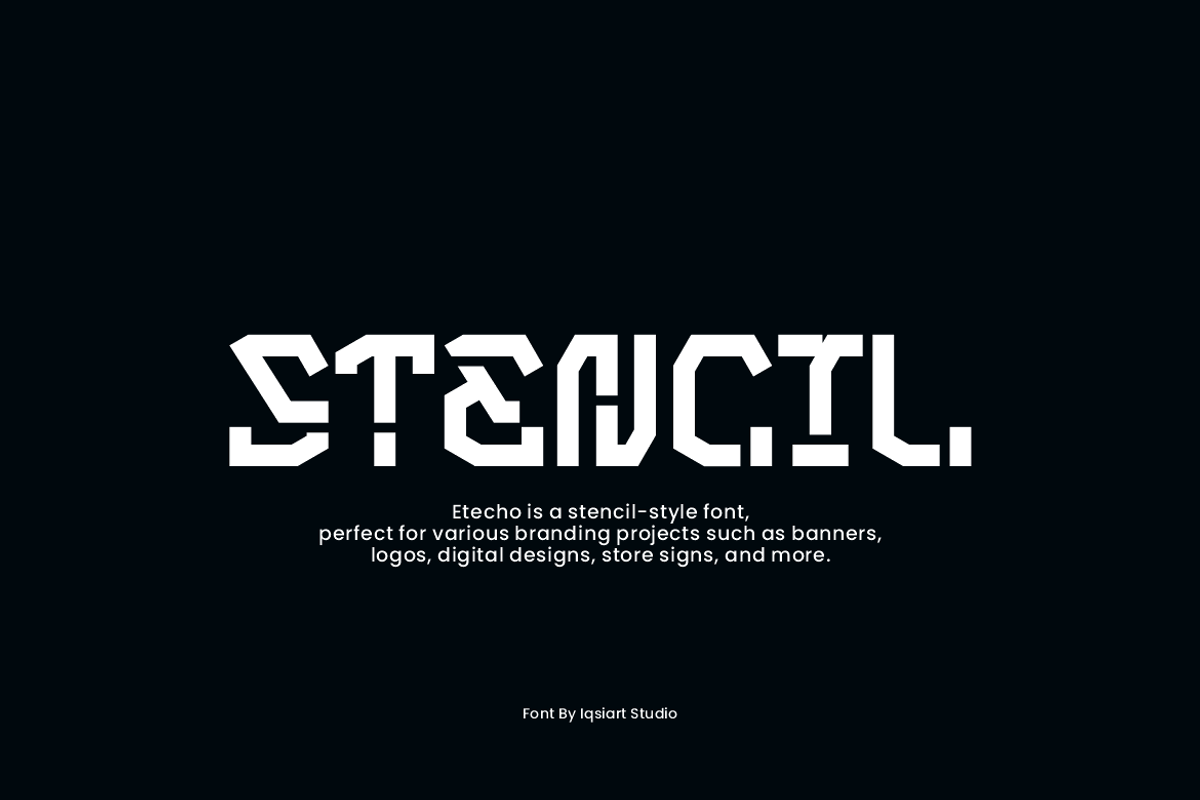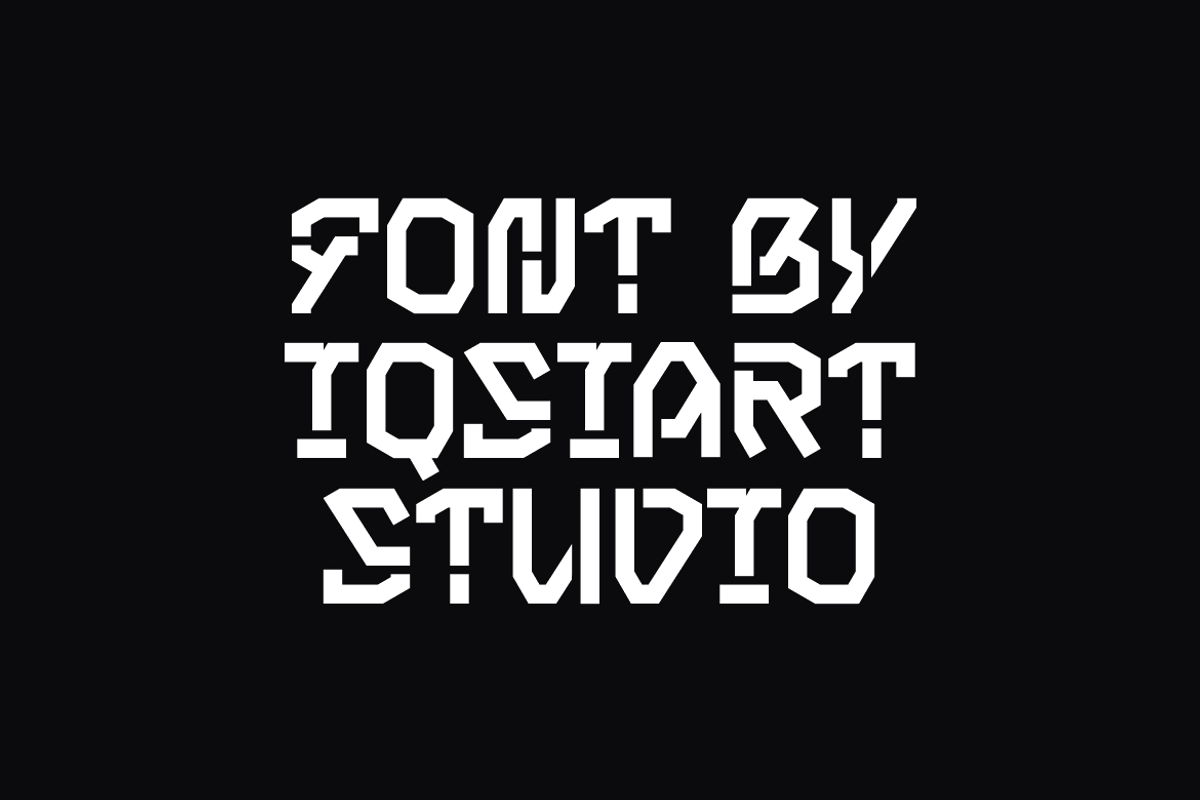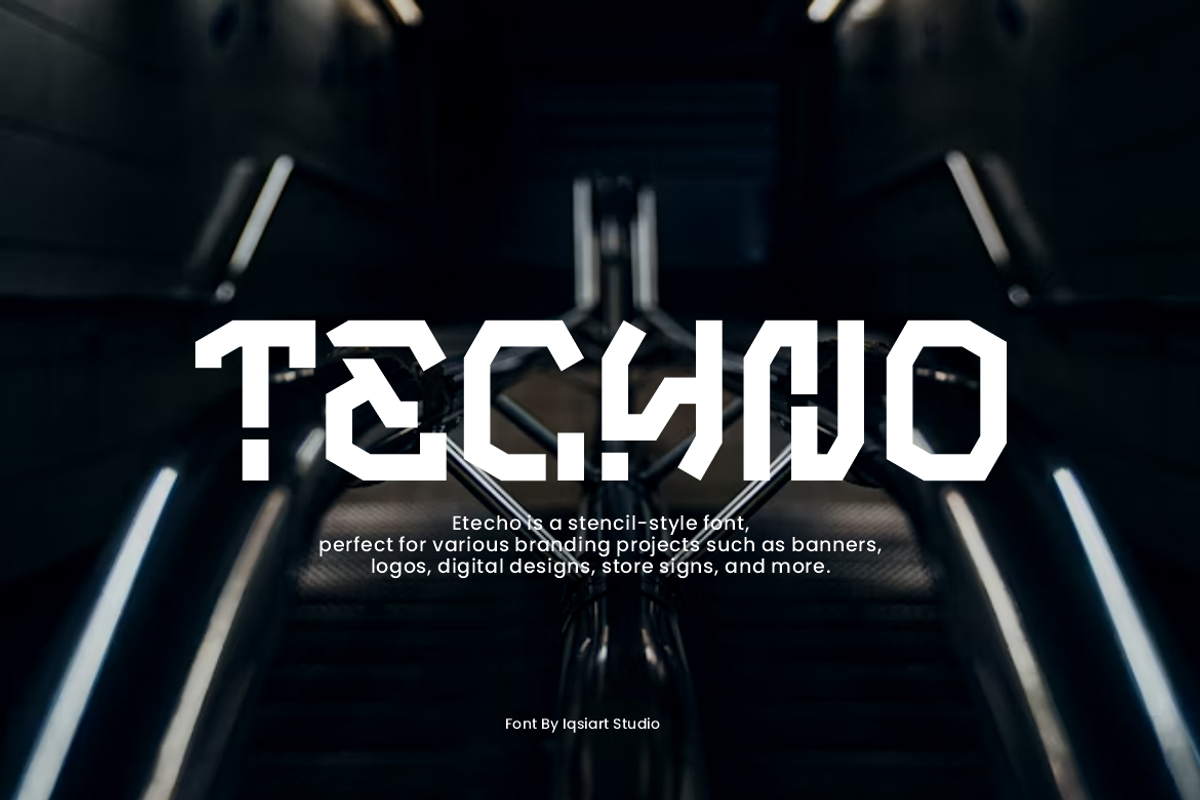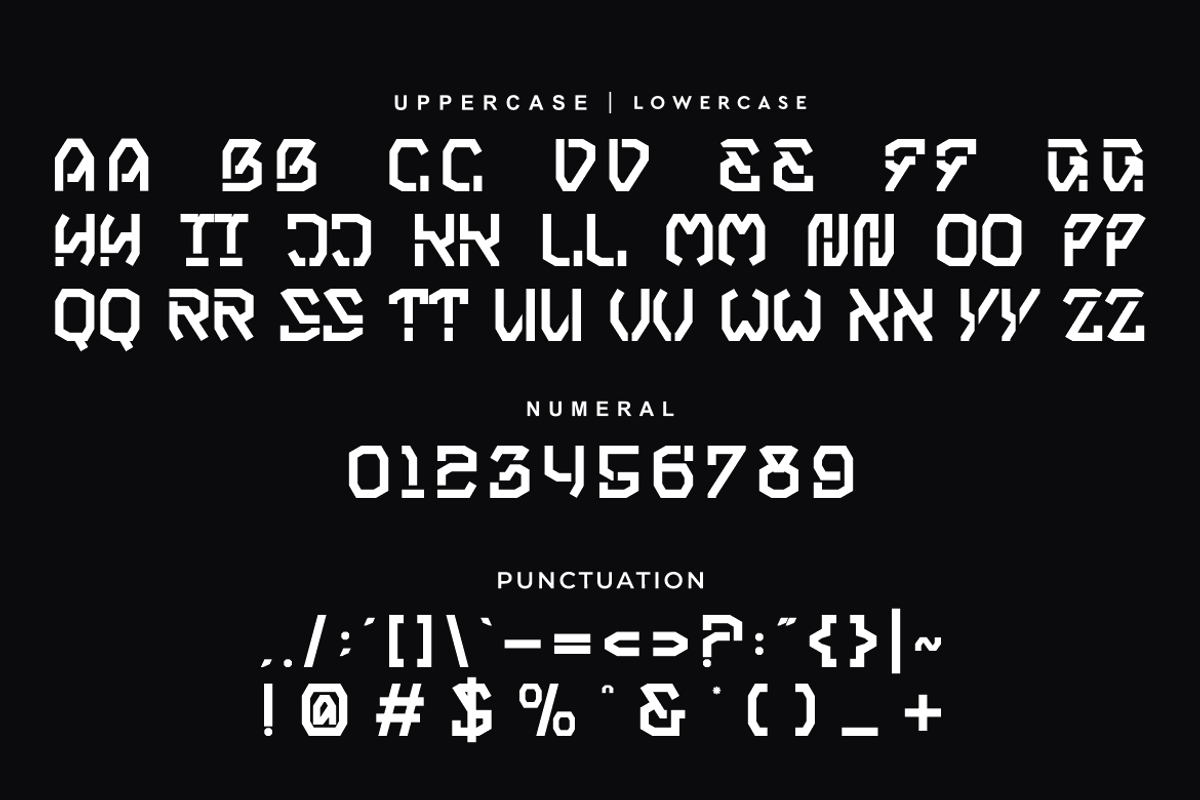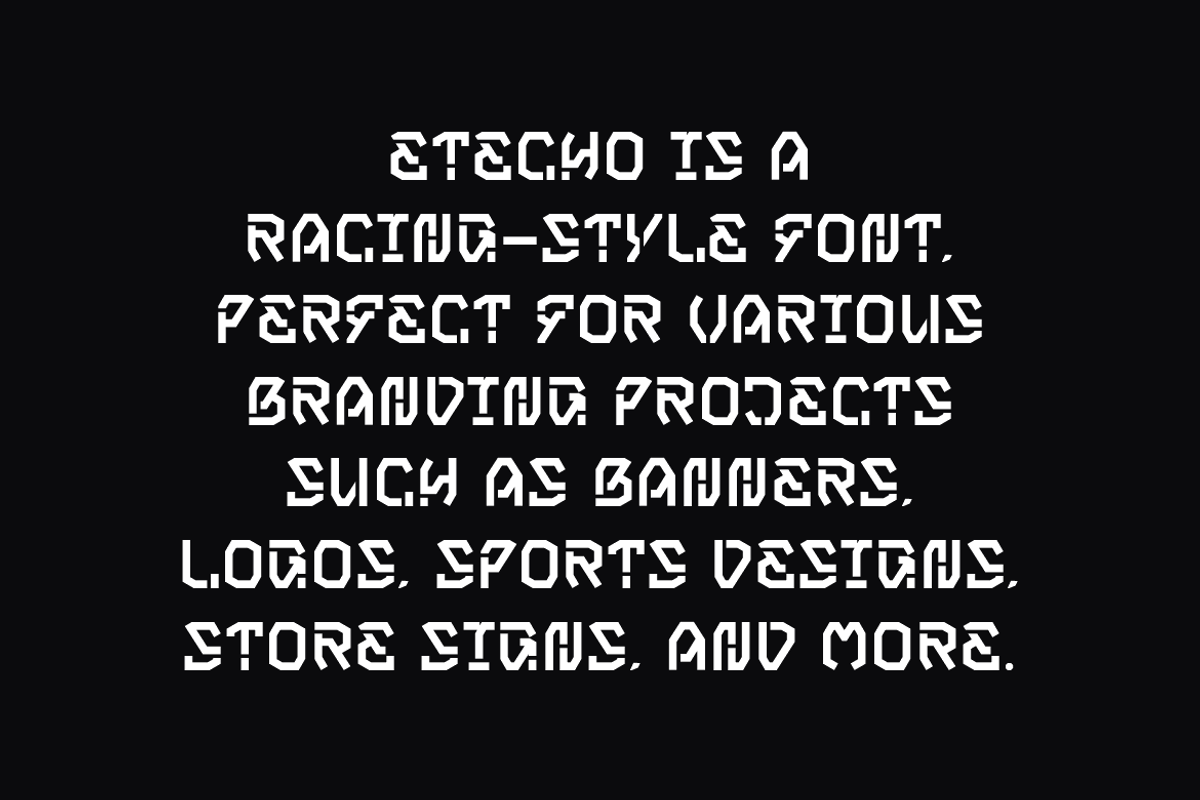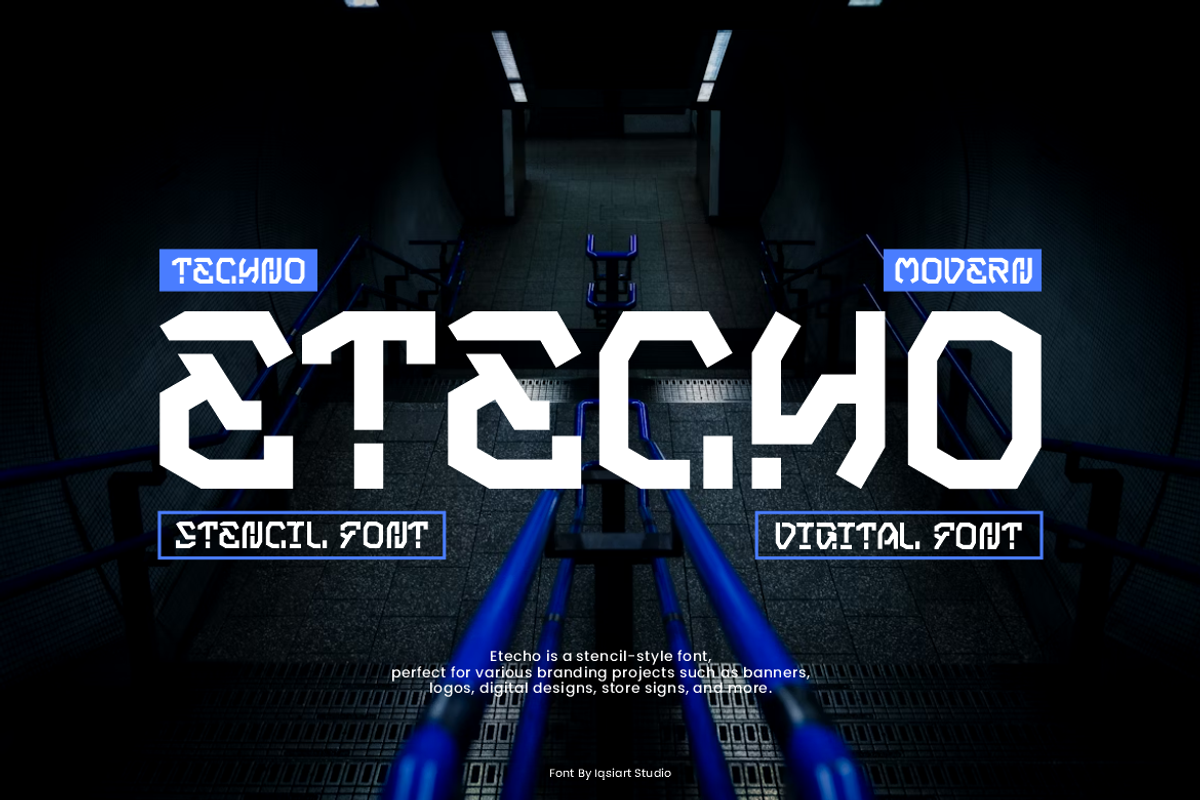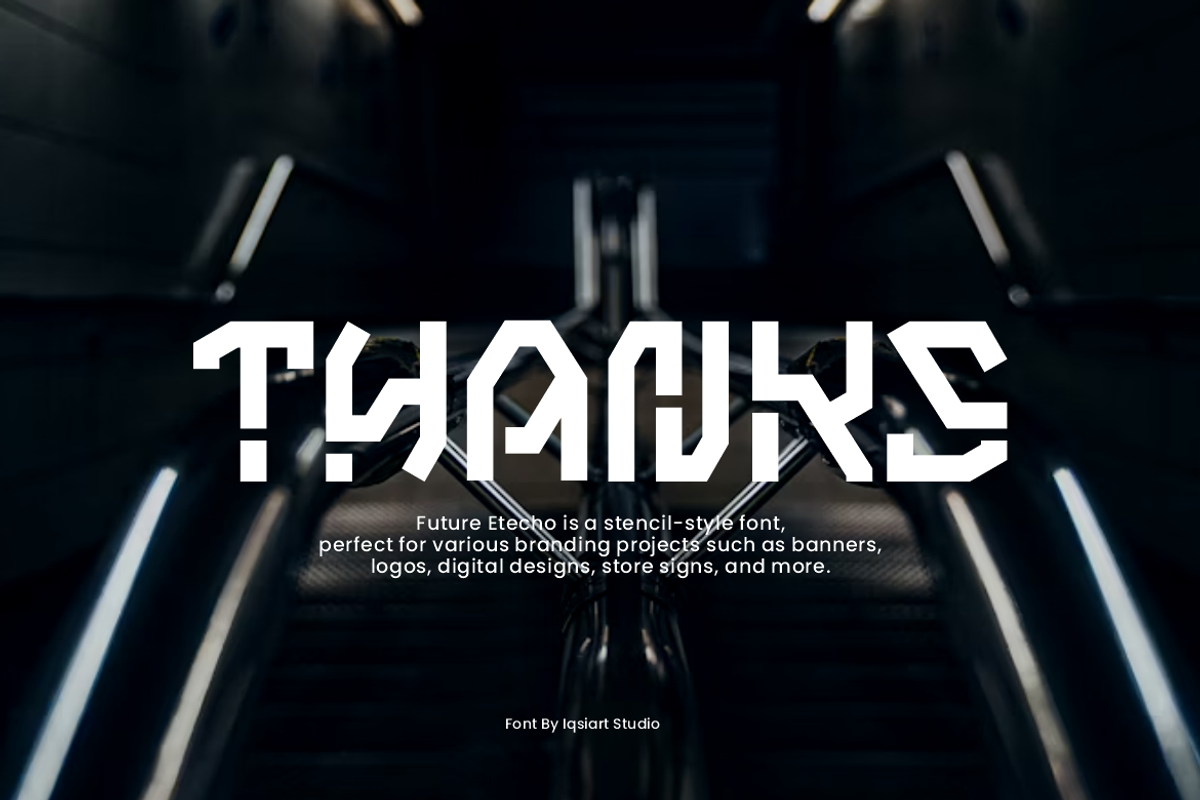
Etecho - Stencil Tech Font
Etecho Font is a stencil and authentic display typeface that suits a variety of design needs. We offer a wide range of themes and font styles — visit our profile to explore more and find the perfect style for your project.